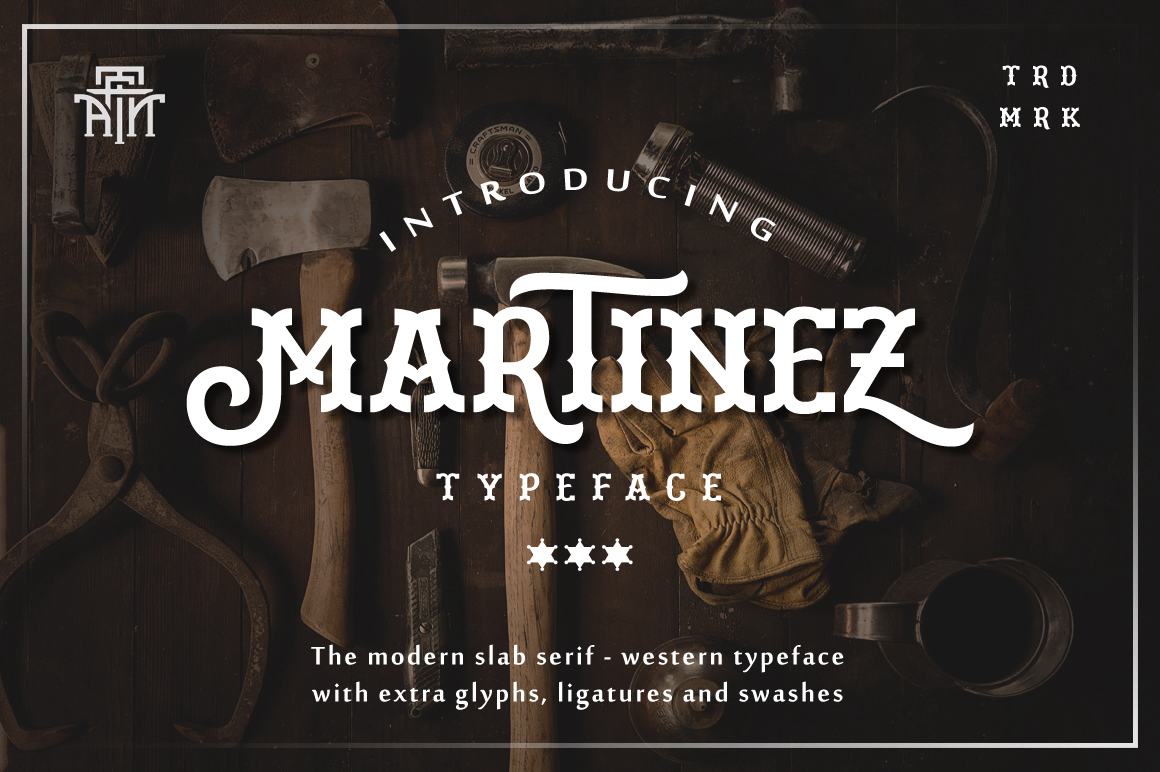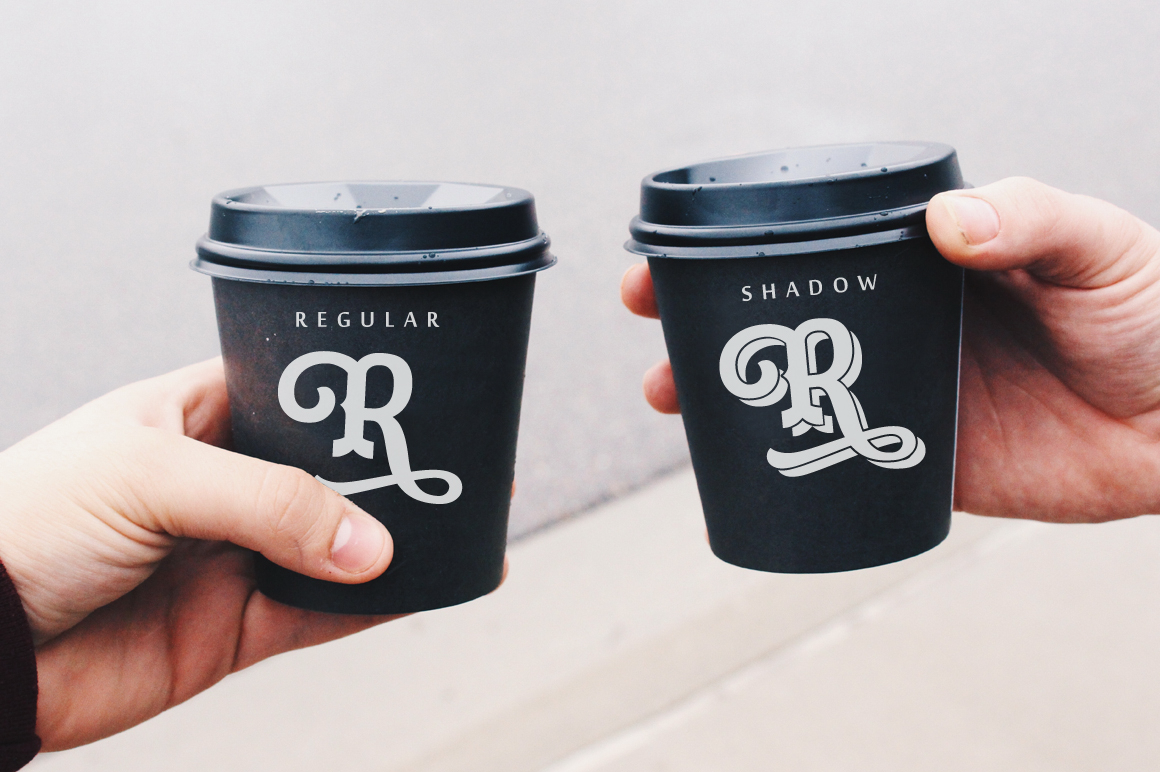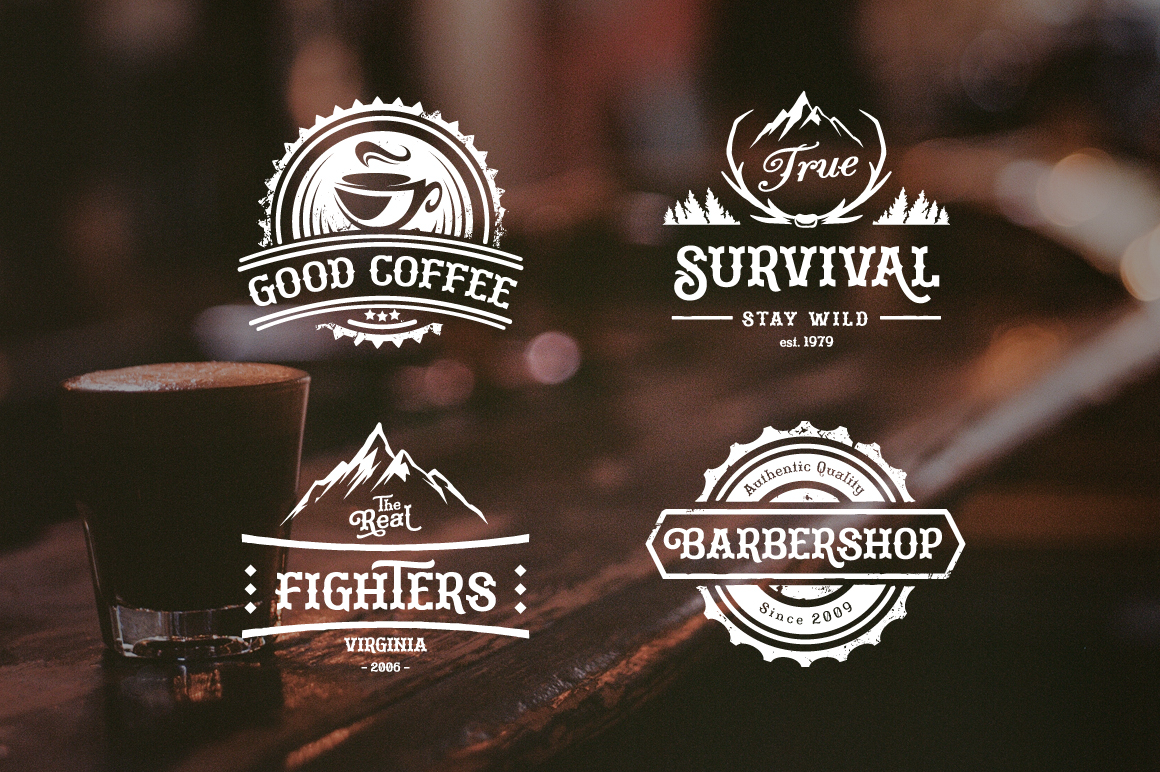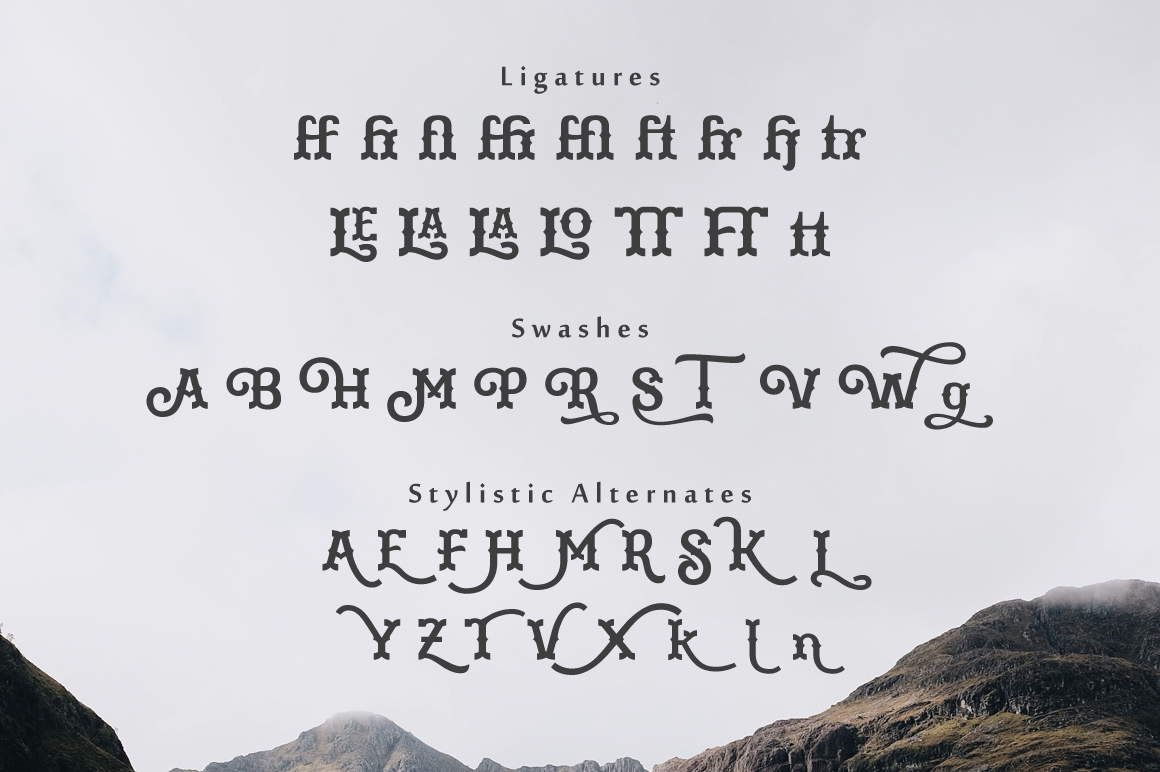
About Martinez Font
Greetings. Introducing our new work, “Martinez Typeface”. Made with vintage references like a cowboy, lumberjack, wooden and hand craft. The modern slab serif that you can apply for your headline, sub headline even your body text. There is Normal & Shadow style that gives you choices.
Martinez is a beautiful decorative typeface, made with references that harken back to cowboys, lumberjacks, and handcrafted vintage items. The modern yet retro slab serif can be applied to all your headlines and give your projects a completely realized feel.